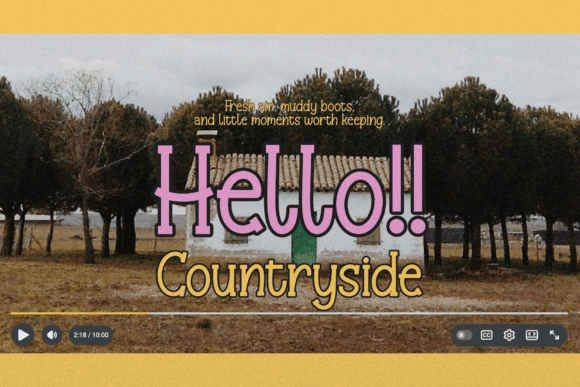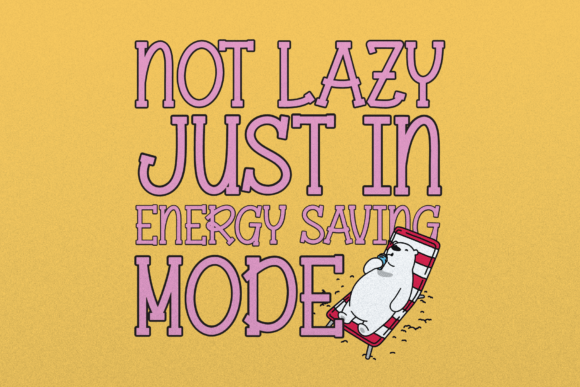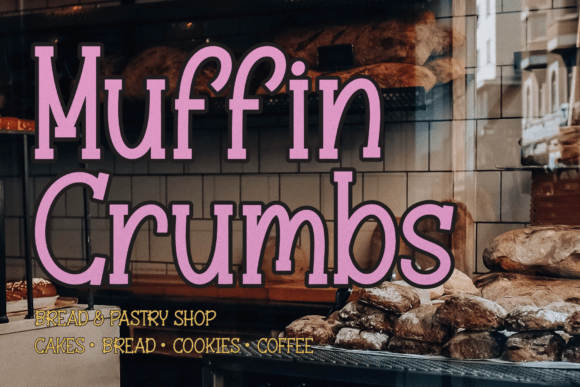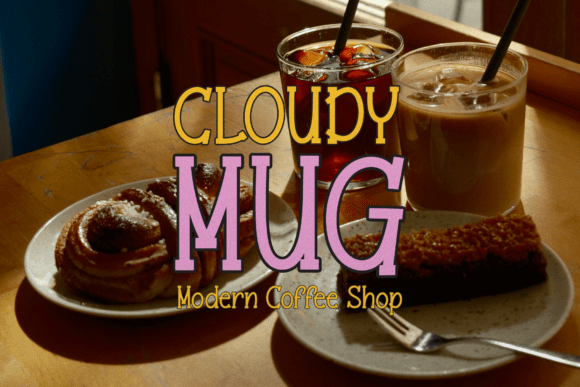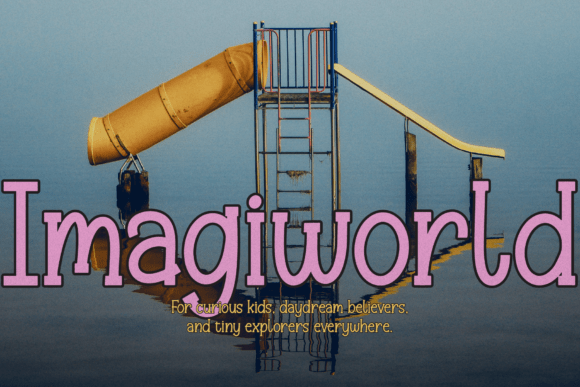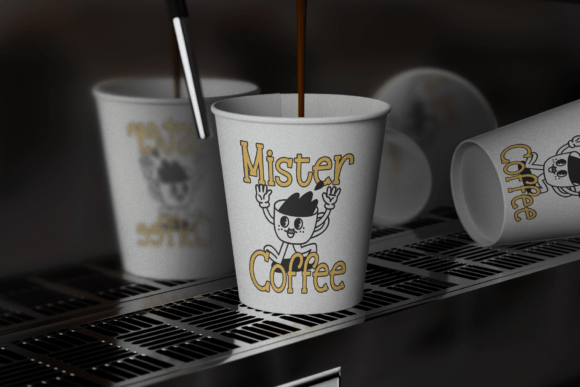
Introduction to Rosie Peachy Font
Infuse your next creative venture with a sweet dose of charm and lighthearted personality using Rosie Peachy, a fresh, playful display typeface.
Striking a perfect balance between a structured slab-serif and an approachable, bouncy hand-drawn style, this font stands out with its quirky proportions, exaggerated crossbars, and friendly visual rhythm A fine, embedded grain texture lends each character an authentic, tactile paper-cut or stamped quality.